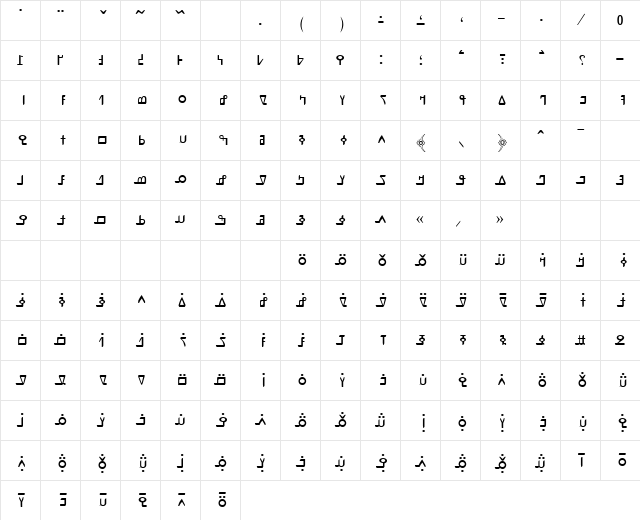
JG NKo Regular Free Font
JG NKo Regular
Design Context for JG NKo
JG NKo is a composed and adaptable typeface that performs quietly and consistently across a wide range of design contexts.